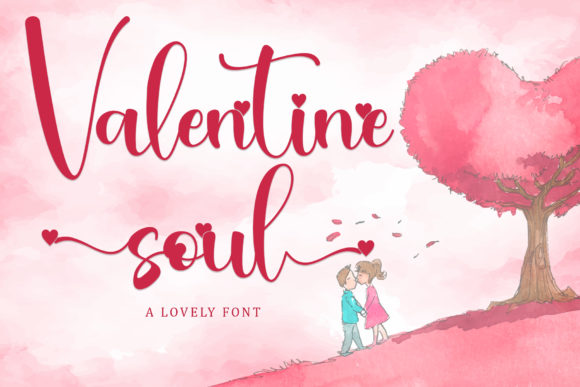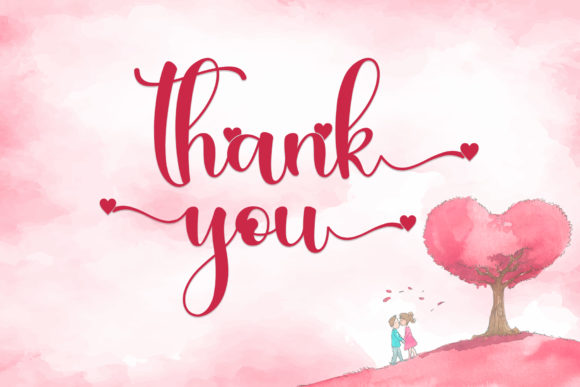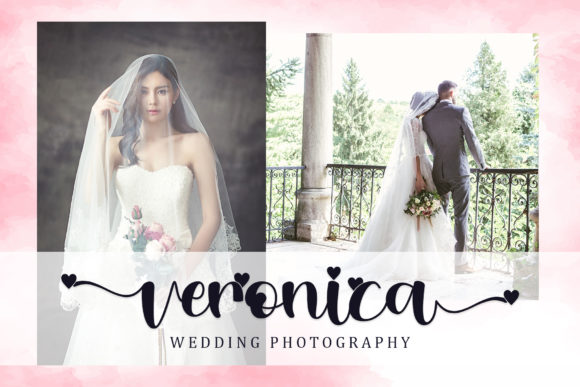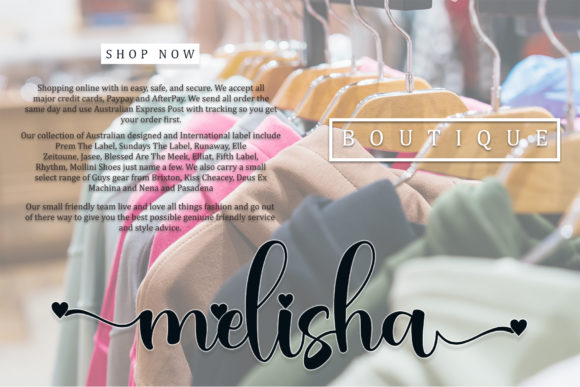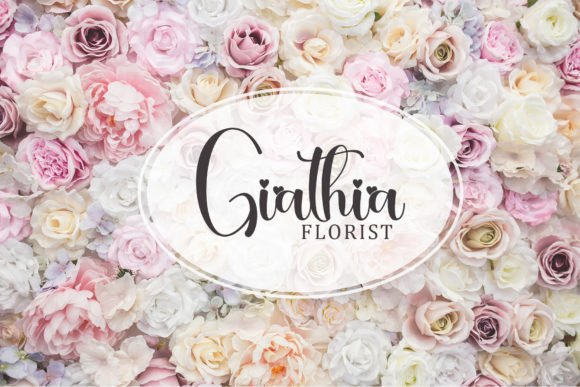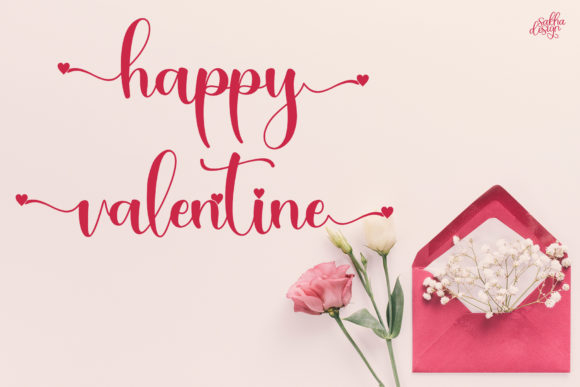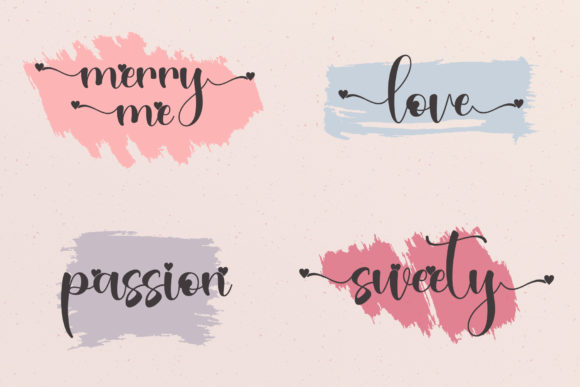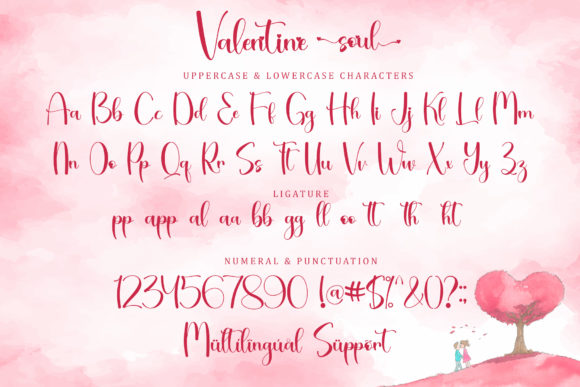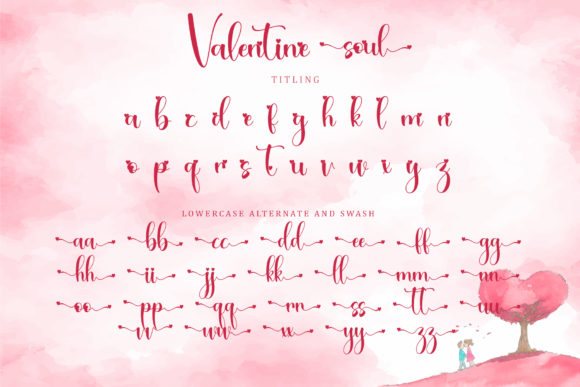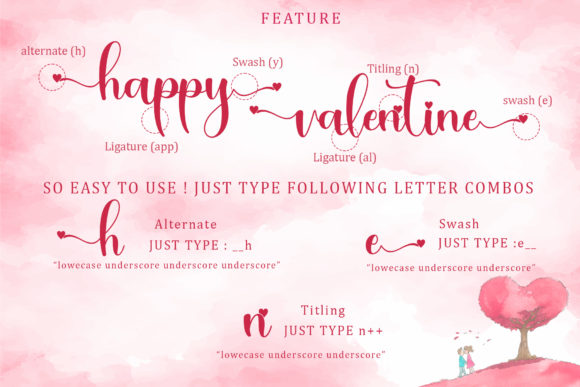
Valentine Soul Font
About Valentine Soul Font
Valentine Soul is a mesmerizing and delicate handwritten font that captures the essence of romance and elegance. With its dreamy and graceful style, this font adds a touch of magic to your designs. It is the perfect choice for creating enchanting wedding invitations, heartfelt cards, and any other design that requires a personalized and dreamy touch.
The beauty of Valentine Soul lies in its intricate details and delicate strokes. Each letter has been meticulously crafted to evoke a sense of joy and whimsy, creating a harmonious and flowing script. The curves and swashes of this font bring a sense of movement and grace, adding a touch of romance and sophistication to your designs.
Whether you’re designing wedding invitations, love letters, or special occasion cards, Valentine Soul will help you convey heartfelt emotions with its charming and dreamy aesthetic. Its delicate and joyful nature creates a warm and inviting atmosphere, making your designs truly captivating.
Valentine Soul’s versatility allows it to adapt to various design projects. From logos and branding to social media posts and typography art, this font effortlessly enhances the beauty of any design. Its PUA encoding ensures easy accessibility to all the glyphs and swashes, allowing you to fully explore the creative possibilities and add those extra special touches to your designs.
Adding Valentine Soul to your projects is sure to evoke feelings of love and enchantment. Its romantic and delicate nature will captivate your audience and create a lasting impression. So, embrace the dreamy charm of Valentine Soul and let it infuse your designs with a touch of romance and personalized beauty.
In summary, Valentine Soul is a romantic and delicate handwritten font that brings a dreamy and personalized touch to your designs. Its dainty and joyful nature makes it ideal for wedding invitations, heartfelt cards, and other designs that require a touch of enchantment. With its PUA encoding, you can easily access all the glyphs and swashes to enhance your creativity. Embrace the magic of Valentine Soul and let it make your designs truly captivating and memorable.